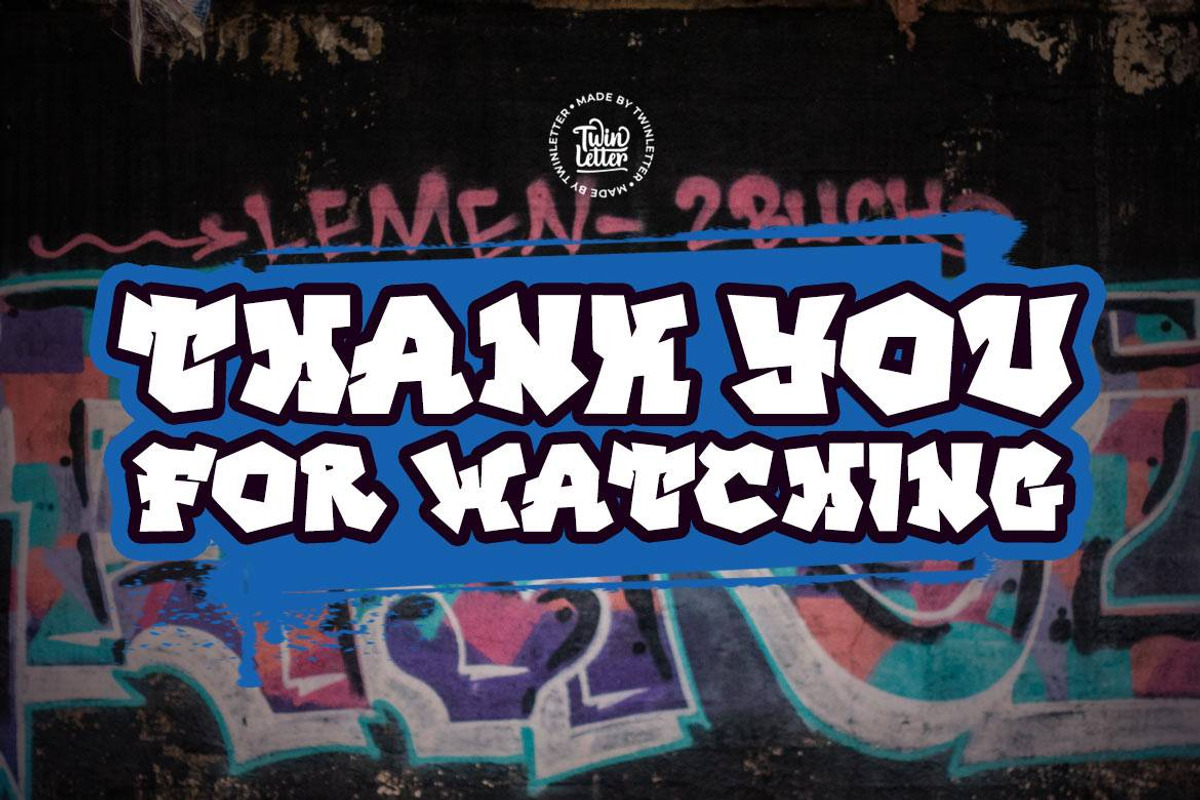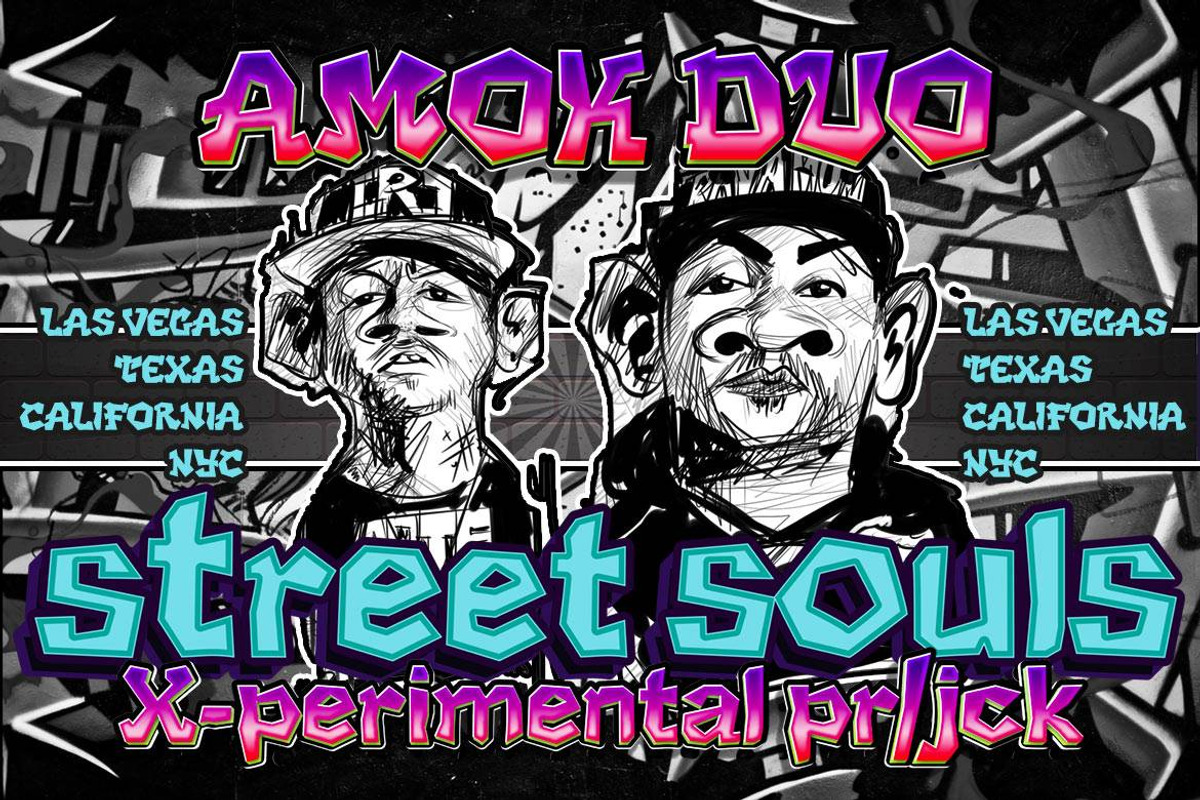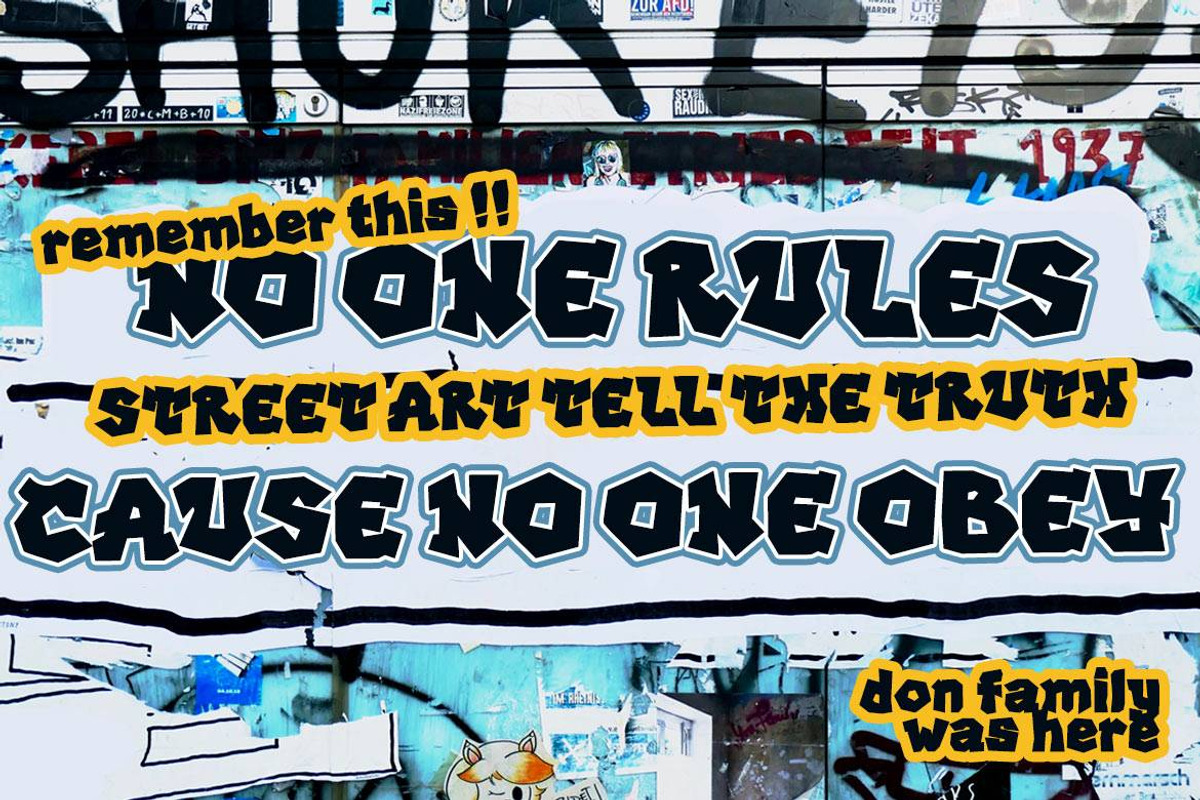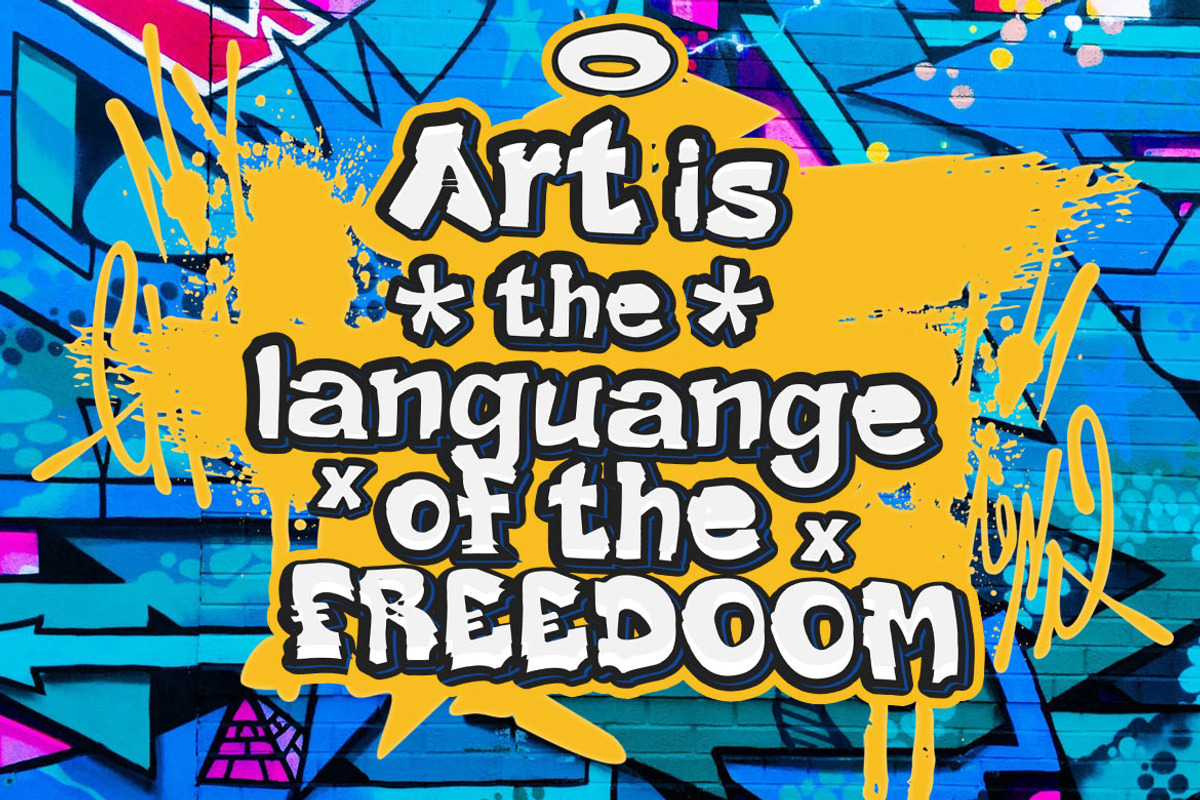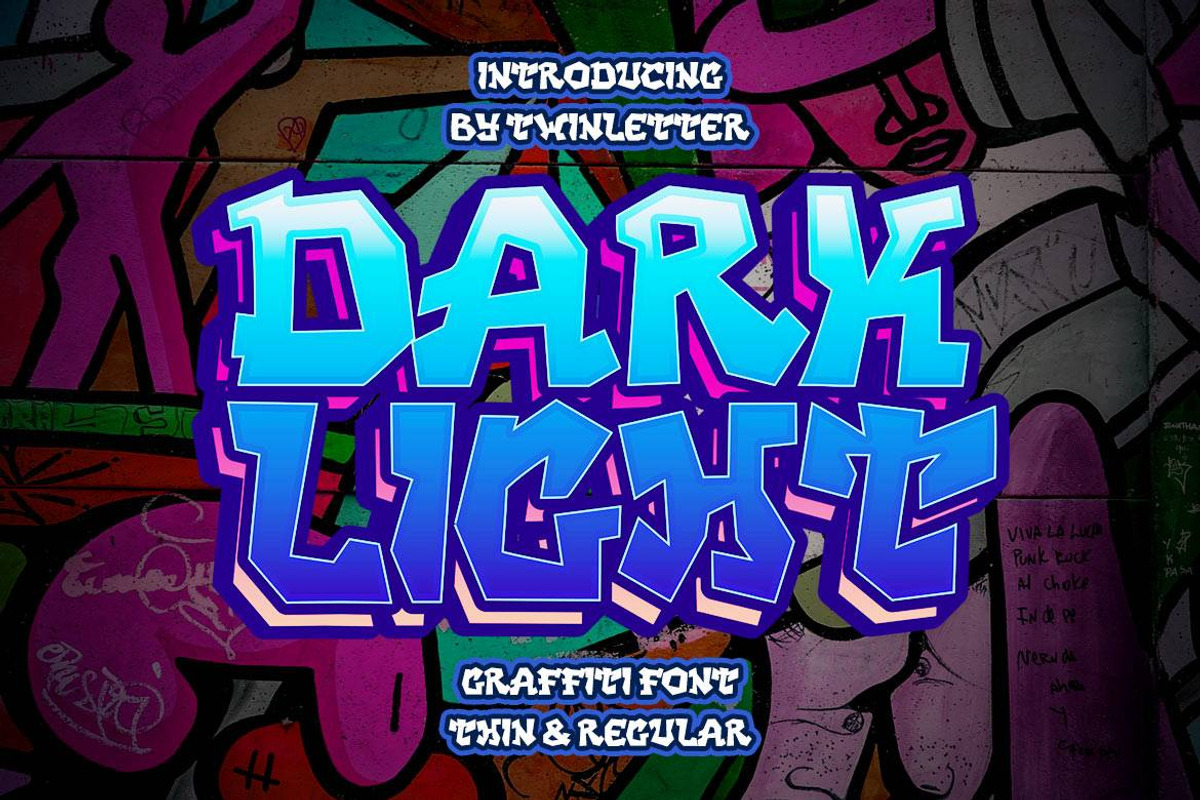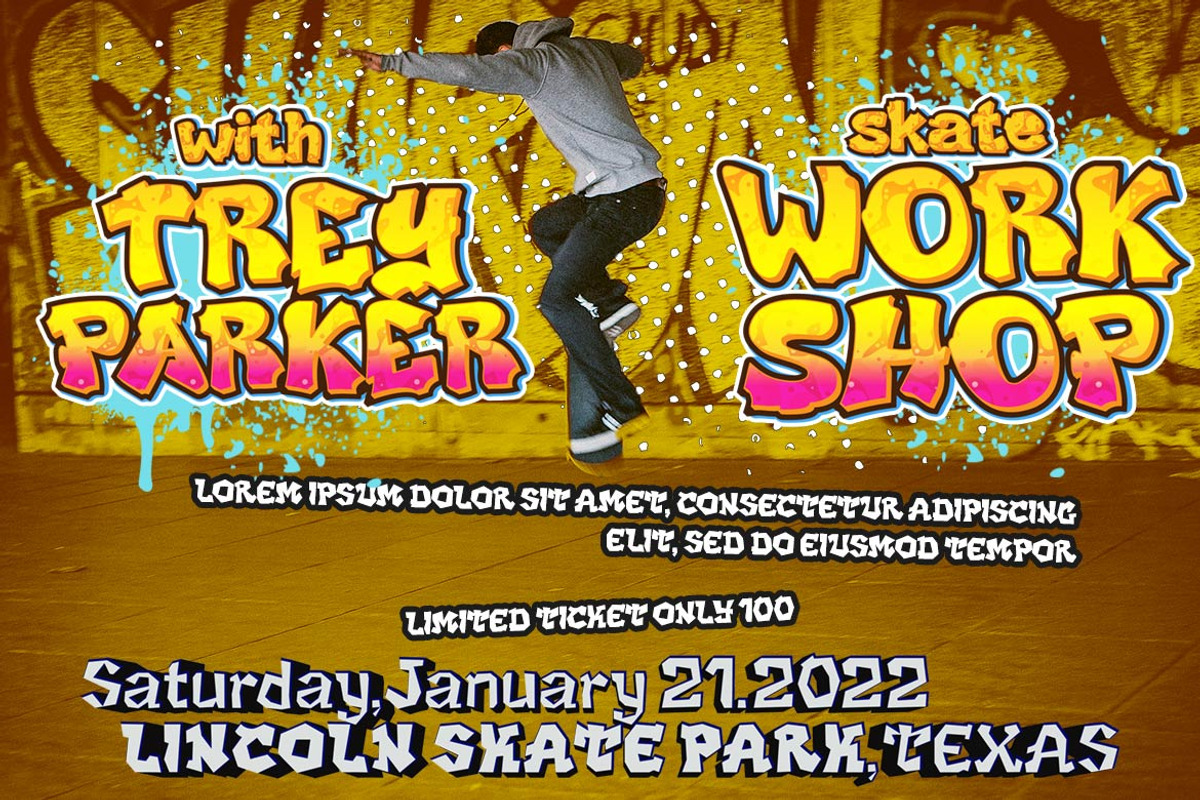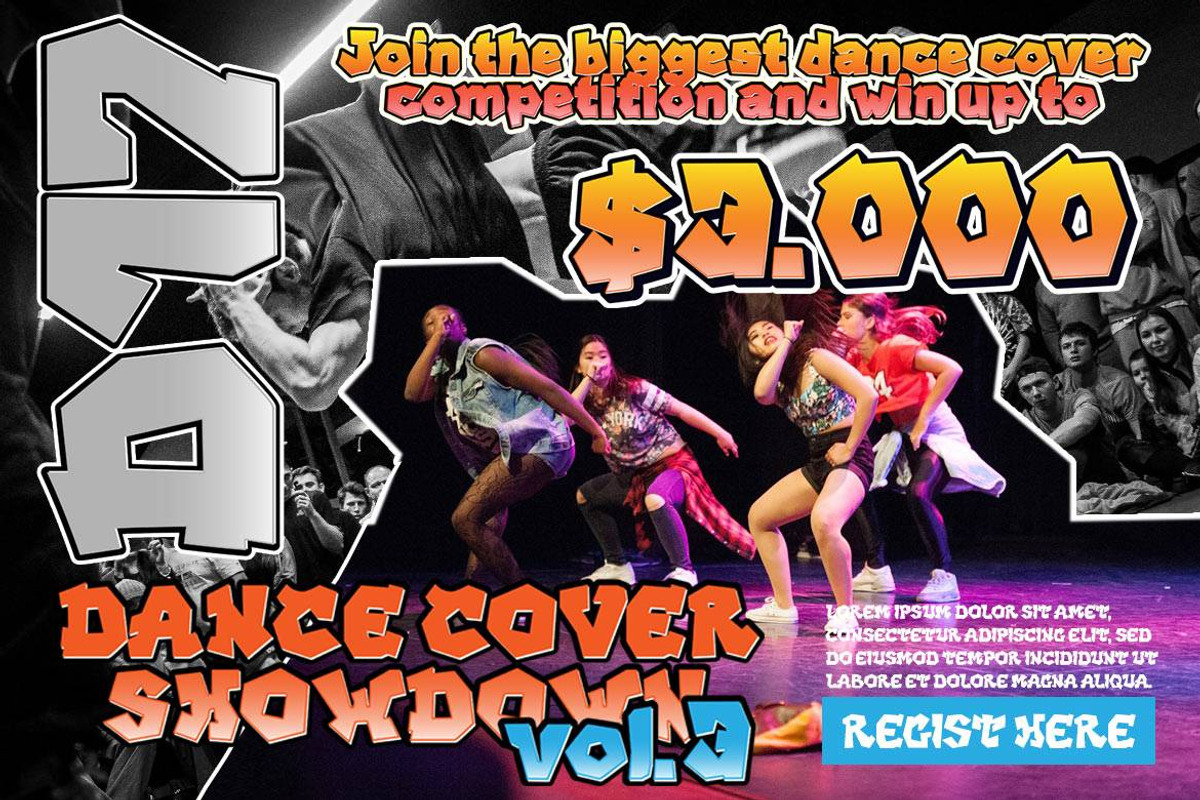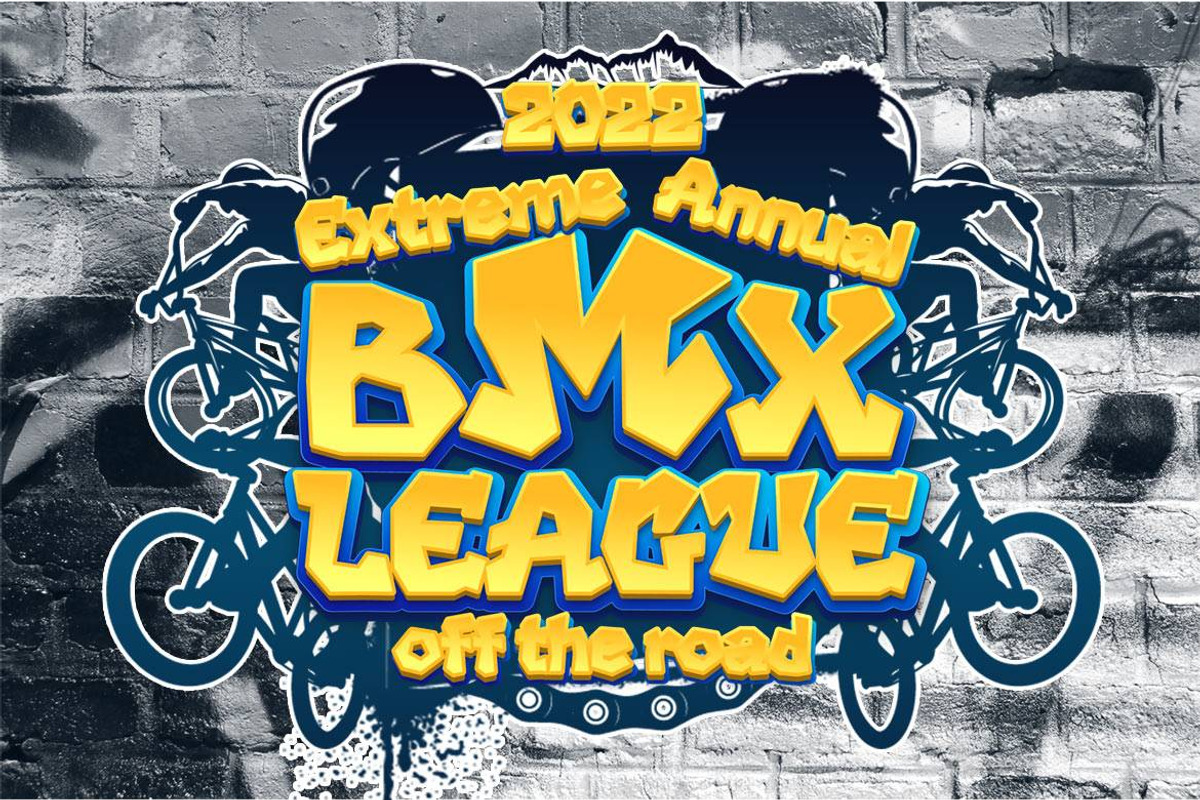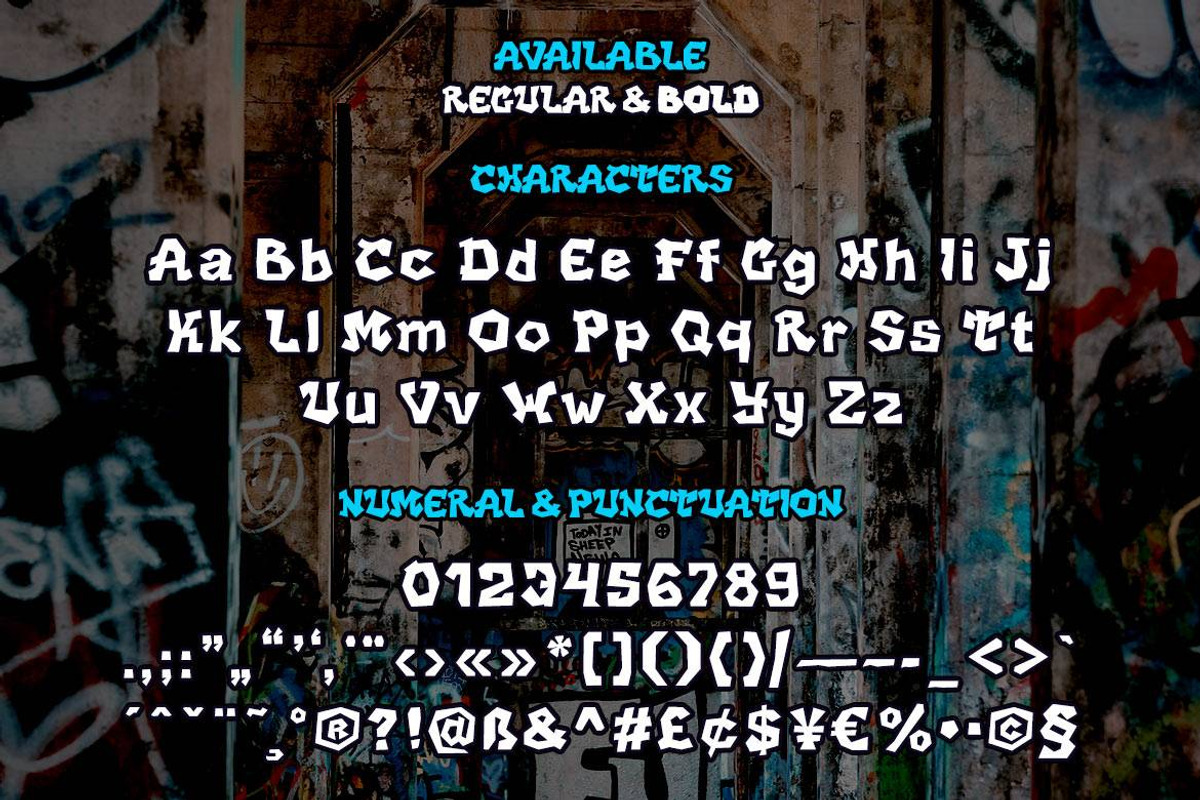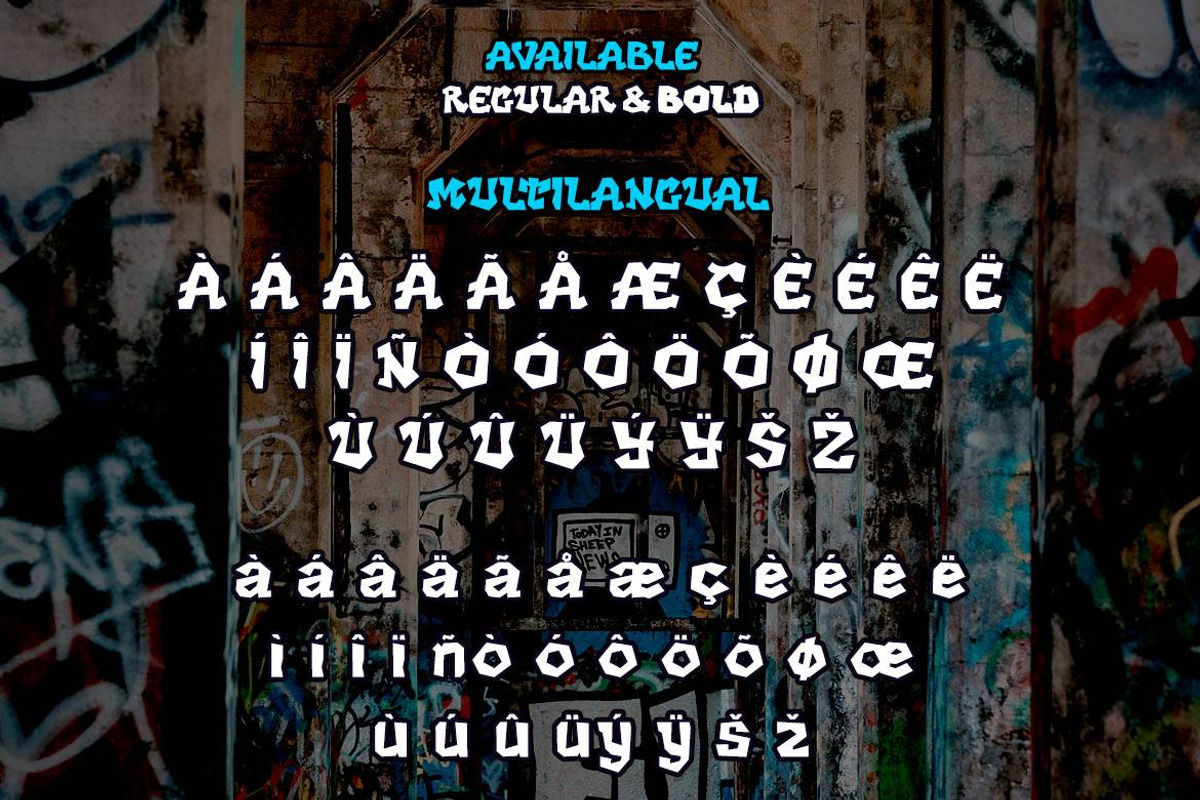
DARK LIGHT - Graffiti Style Font
DARK LIGHT is a graffiti-style display font with individuality in each letter. Use this font to create a unique style that will pique the interest of many people. Not only that, but your project will look more attractive and natural if you use it.
This graffiti font is great for product logos, poster titles, headlines, packaging, film titles, logotypes, gorgeous writing, and trendy graffiti designs, among other things.
Of course, if you utilize this font in your numerous creative projects, they will be perfect and outstanding. Use this typeface right away for your one-of-a-kind and remarkable projects.